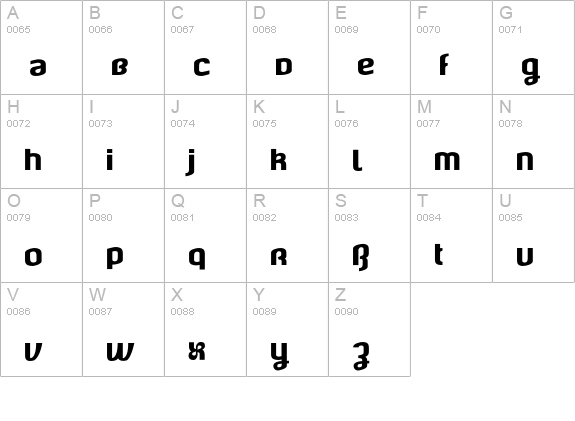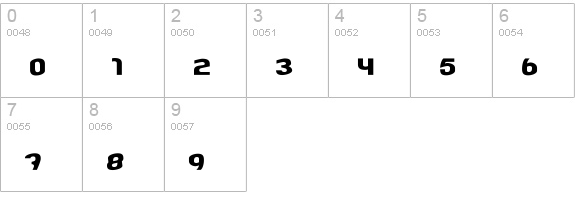
Claster-BETAregular Font Details
Claster-BETAregular font is a modern and stylish typeface that exudes creativity and sophistication. Its clean lines and unique design make it perfect for a wide range of projects, from branding to editorial design. The font's versatility allows it to be used in various contexts, adding a touch of elegance to any project. What sets Claster-BETAregular font apart is its sleek and contemporary style, making it a standout choice for designers looking to make a statement. Whether you're working on a website, logo, or print material, this font will bring a modern edge to your design. Best of all, Claster-BETAregular font is completely free to download at FontsMarket.com. This means you can access this stunning typeface without any cost, making it a valuable addition to your font collection. Don't miss out on the opportunity to elevate your design projects with Claster-BETAregular font, available for free download now!